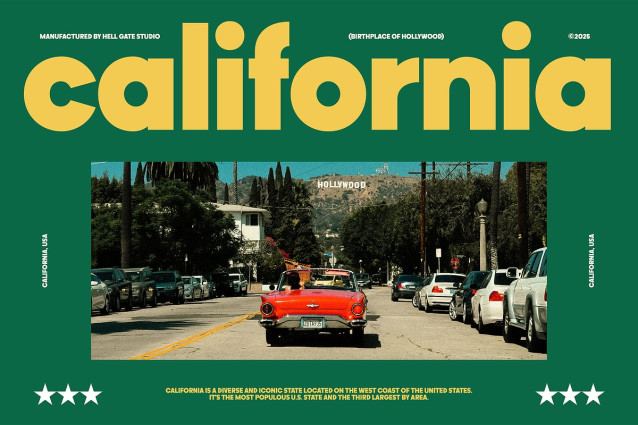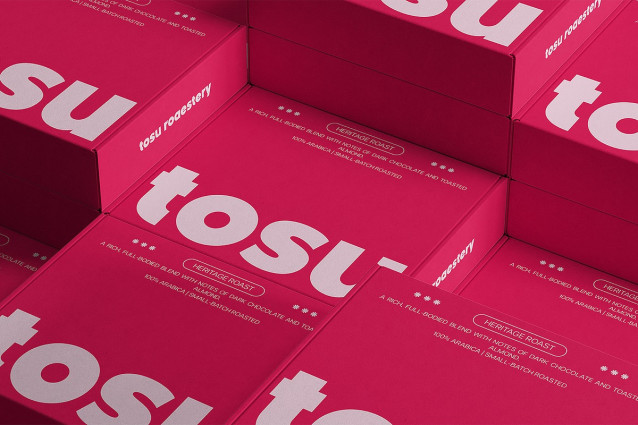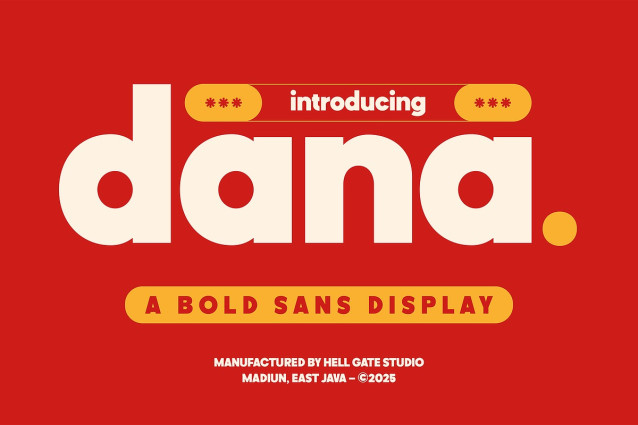
Dana Sans Font
Dana Sans Font – A bold, well-crafted Sans Display font. Bold in style, Dana presents an elegant theme that easily elevates any layout. The high quality of this font allows for precision in design while also allowing users to seamlessly edit text and colors.